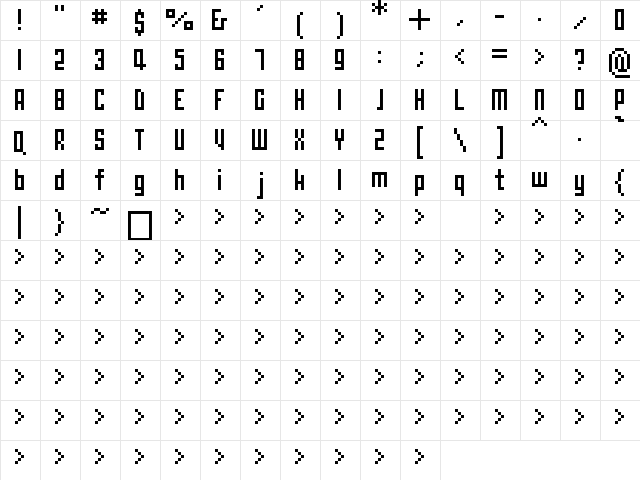
00Pedantix Bold
Design Context for 00Pedantix Typeface
00Pedantix takes a measured approach to typography — its balanced proportions and neutral character make it a reliable workhorse for both digital and print work. Its bold stroke weight gives it real presence on the page.